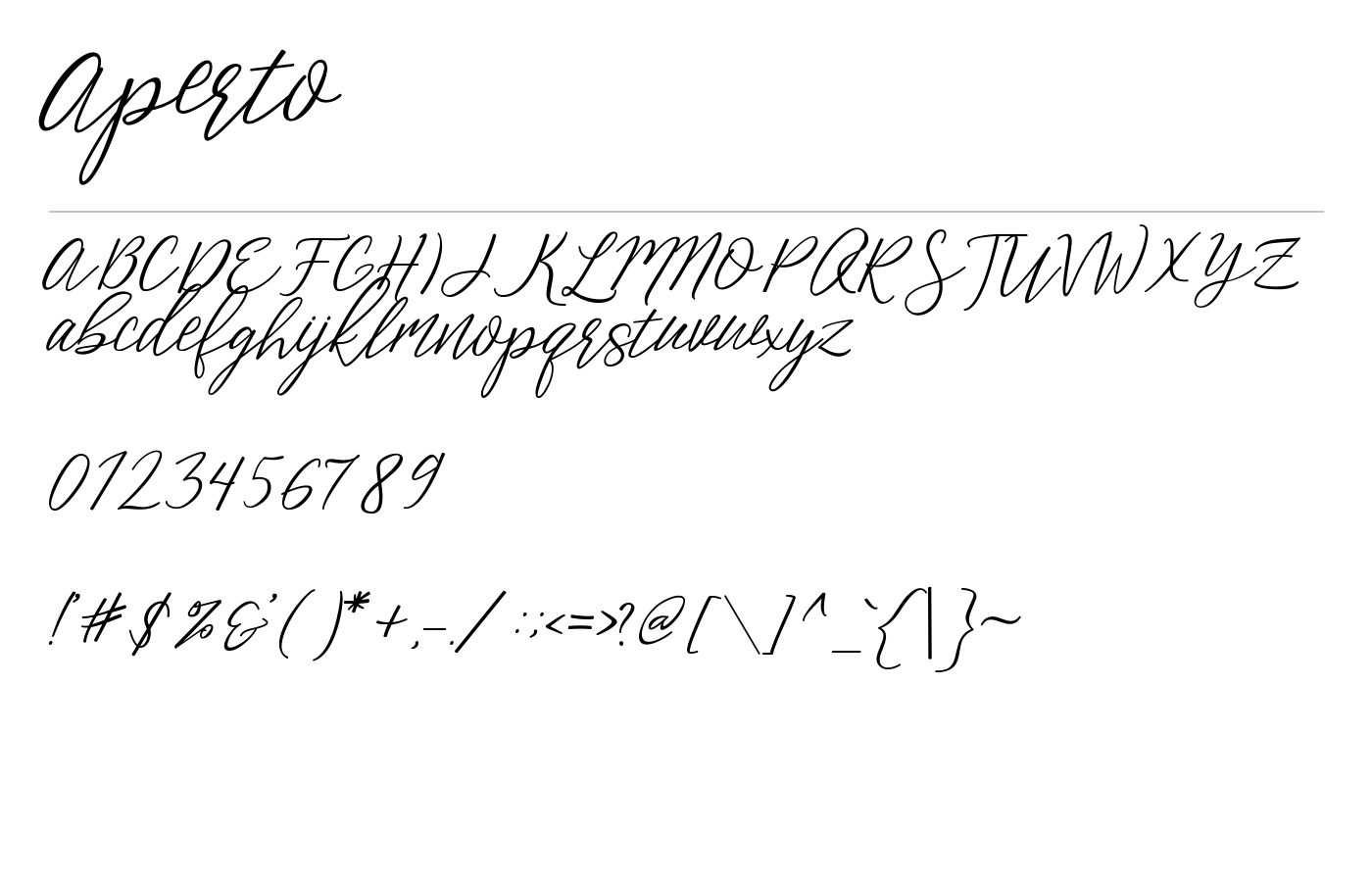
Aperto is an elegant signature-style script font characterized by its slender, flowing strokes and delicate, hand-written feel. Its graceful letterforms create a sophisticated and personal touch, making it ideal for branding, invitations, and stylish editorial work where a refined, intimate atmosphere is desired. This font works beautifully in projects that need a modern yet timeless elegance with a natural, fluid flair.
Aperto | Elegant Signature Font
About Aperto | Elegant Signature Font